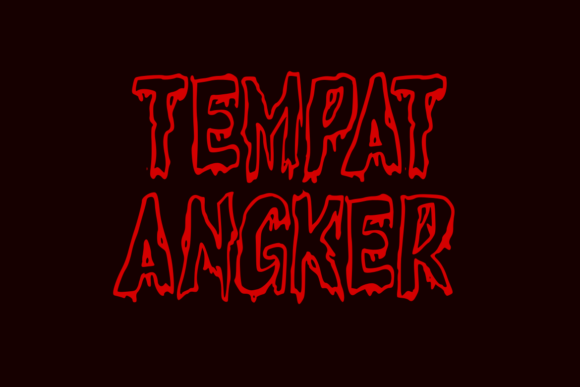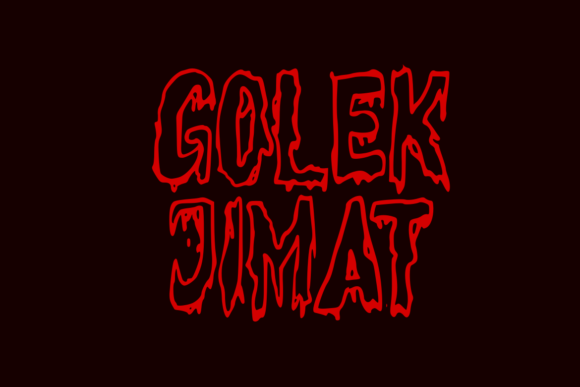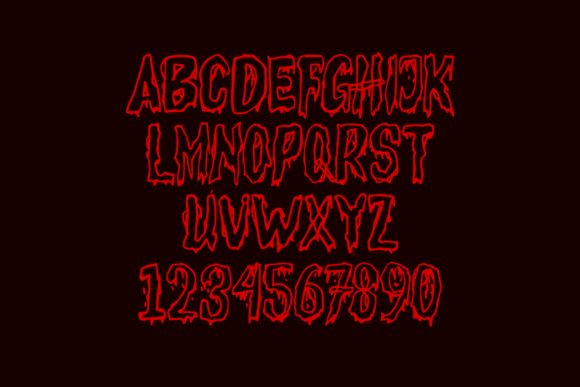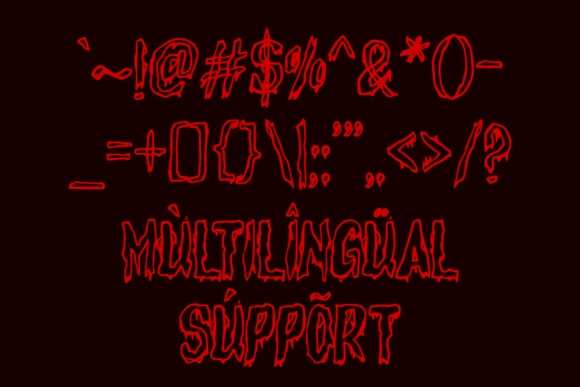
Introduction to Kesambet Font
Do you remember that moment when you stumbled upon a creepy abandoned house in a horror movie, and the font used for the title sent shivers down your spine? That’s the magic of the Kesambet Font – a high-quality, haunting horror display font that can elevate your creative project to a whole new level. With its twisted letterforms and eerie design, it’s the perfect tool for designers who want to add a chilling touch to their work.
Key Features of Kesambet Font
- High-quality design: Kesambet Font offers a unique and creative design perfect for various projects, from logos to typography.
- Large character set: Kesambet Font includes a comprehensive character set, covering a wide range of languages and characters.
- Unique characteristics: Kesambet Font boasts a distinctive and creative style, setting it apart from other fonts and making it an excellent choice for designers seeking a unique design resource.
Honest Review: Kesambet Font
I recently had the opportunity to work with the Kesambet Font, and I must say it’s a great addition to any designer’s toolkit. With its high quality and unique style, it’s perfect for creative projects that require a touch of elegance.
Here are some aspects of the font that I found particularly impressive:
- ✨ High quality design that looks great on a variety of backgrounds, including transparent backgrounds.
- ✨ Easy to read and use, making it perfect for a wide range of design projects.
- ⚠️ Limited font sizes and weights available, which may not be suitable for all design projects.
- ⚠️ Not ideal for projects that require a lot of text, as the font can be quite ornate and may be difficult to read in large quantities.
Overall, I was impressed with the Kesambet Font and would definitely recommend it to designers looking for a unique and high-quality font to add to their design resource library. While it may have some limitations, it’s a great option for creative projects that require a touch of sophistication.
The Kesambet Font is ideal for creating logos, branding materials, and marketing collateral. Its unique design and transparent background make it perfect for creating eye-catching graphics that stand out from the crowd.
To get the most out of the Kesambet Font, experiment with different font sizes, colors, and styles to create a unique look. Use the font in combination with other design elements to create a cohesive and high-quality design.